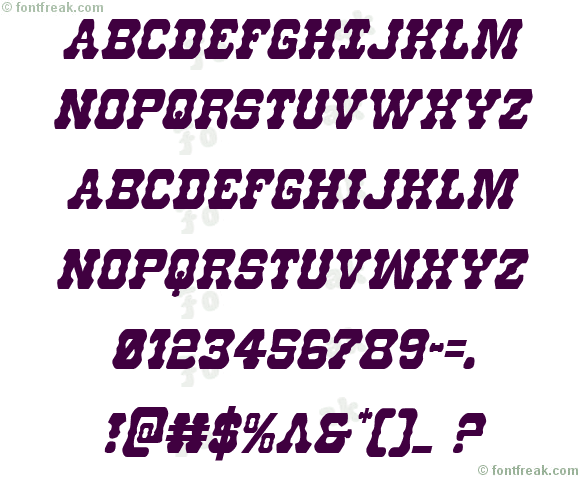
U.S. Marshal Shadow Italic
About U.S. Marshal Shadow Italic
The U.S. Marshal Shadow Italic font, designed by Daniel Zadorozny, belongs to the display category, making it a striking choice for various creative projects. This font features an expanded and condensed style, characterized by its unique three-dimensional shadow effect that gives a sense of depth and dynamism. The stroke weight is consistent throughout, with a moderate contrast that enhances its readability while maintaining an impactful visual presence. The italic slant adds a touch of elegance and movement, making it ideal for capturing attention.
This font is particularly well-suited for use cases such as movie posters, where its bold and dramatic appearance can evoke excitement and intrigue. It also works beautifully for restaurant menus, adding a playful yet sophisticated flair that can enhance the dining experience. Additionally, graphic designers may find it perfect for branding materials, allowing businesses to convey a unique identity. Wedding invitations can benefit from the font's stylish aesthetic, making it a great choice for couples looking to create a memorable first impression. Content creators may also utilize this font in promotional graphics to attract viewers with its distinctive look.
What sets the U.S. Marshal Shadow Italic font apart is its ability to combine boldness with sophistication. Its unique visual style not only grabs attention but also enhances the overall aesthetic of any design, making it a standout choice for those looking to make a lasting impression. For those interested, the U.S. Marshal Shadow Italic font free download is readily available for immediate use in your creative projects.